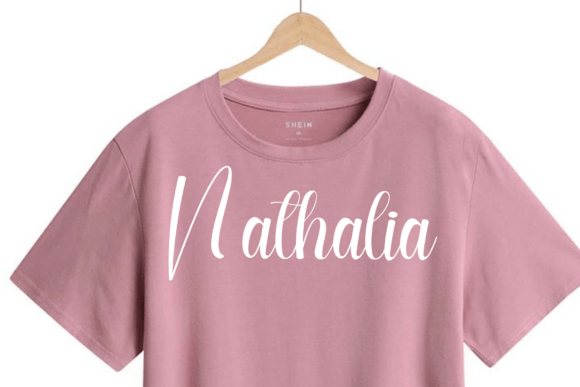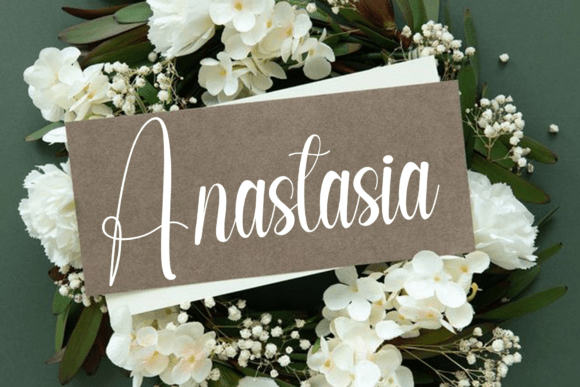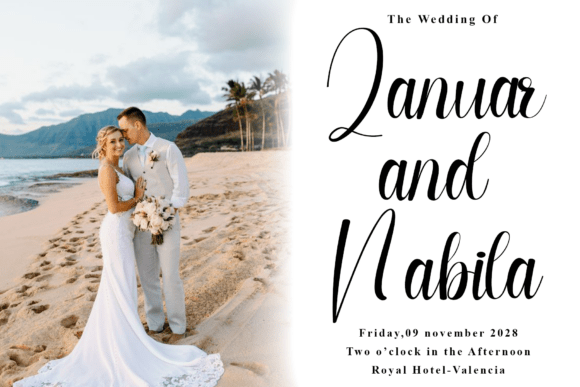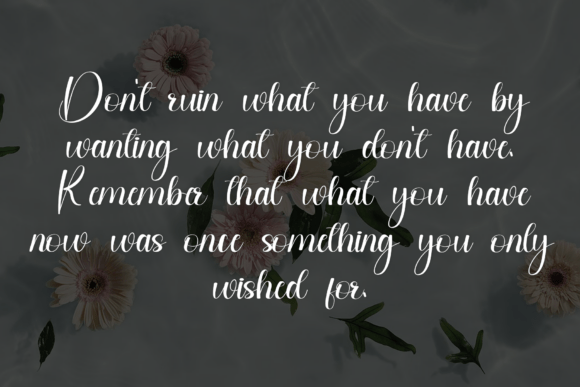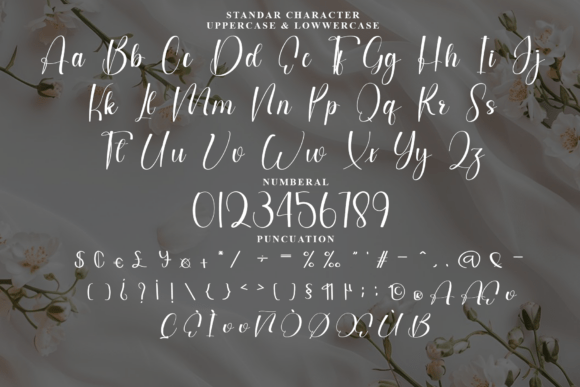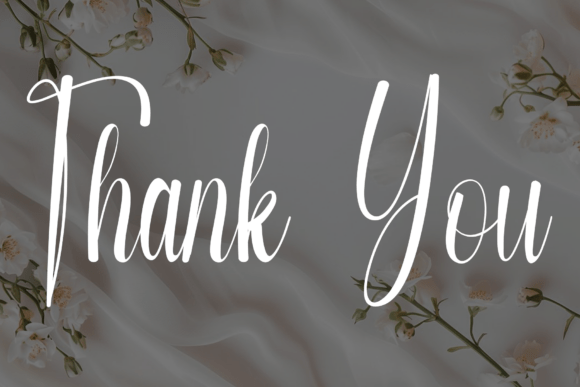
Introducing Floating Font: Elevate Your Design with a Breeze of Elegance
In the realm of modern handwritten fonts, Floating emerges as a unique and professional addition, crafted to infuse designs with a sense of clarity and crisp elegance. This font, characterized by its tall, thin strokes and subtle, airy slant, offers a refined aesthetic that feels refreshingly invigorating, much like a mountain breeze. Whether you’re a designer, a crafter, or a brand looking to elevate your visual identity, Floating Font is poised to become your go-to choice for projects that demand a touch of sophistication and freshness.
The Essence of Floating Font
Floating Font is not just another addition to the myriad of handwritten fonts available today. Its design is meticulously thought out to evoke a sense of lightness and grace, making it an ideal choice for applications where elegance and approachability are paramount. The tall, thin strokes of Floating Font lend a sense of grandeur and refinement, while its subtle slant adds a dynamic, yet understated, flair to the text. This balance of elegance and approachability makes Floating Font versatile, capable of enhancing a wide range of design projects.
Ideal Applications for Floating Font
The clean and approachable style of Floating Font makes it exceptionally suited for several key areas:
- Travel Photography: For travel photographers and bloggers, Floating Font offers a way to add a sophisticated touch to titles and captions, perfectly complementing the breathtaking visuals of travel experiences.
- Branding for Outdoor Gear: Brands that specialize in outdoor gear and equipment can leverage Floating Font to communicate a sense of adventure and reliability. Its fresh and airy feel aligns well with the outdoorsy and adventurous vibes of such brands.
- Sophisticated Web Design: For web designers looking to create a site that feels both modern and elegant, Floating Font can serve as a versatile tool. It can be used for headings, titles, and even body text, providing a cohesive and refined look to the website.
Why Choose Floating Font?
Choosing Floating Font for your design projects comes with several advantages:
- Unique Aesthetic: Floating Font offers a unique aesthetic that stands out in the crowded space of digital and print design. Its distinctive look can help projects gain attention and leave a lasting impression.
- Versatility: The font’s versatility means it can be used across various platforms and design applications, from digital interfaces to print materials, without losing its elegance and impact.
- Ease of Reading: Despite its elegant and thin strokes, Floating Font maintains a high level of legibility, making it suitable for both headings and longer texts.
Tips for Using Floating Font Effectively
To maximize the impact of Floating Font in your designs, consider the following tips:
- Pair with Contrasting Fonts: For optimal readability and visual interest, pair Floating Font with a more robust, contrasting font for body text or other elements.
- Adjust Line Spacing: Given its airy feel, ensure adequate line spacing to maintain the font’s light and elegant appearance.
- Consider Color Choices: Floating Font’s delicate appearance means that color choices should complement its lightness. Soft, pastel colors or rich, dark tones can create a stunning contrast.
Floating Font stands out as a remarkable addition to the world of modern handwritten fonts, offering a blend of elegance, clarity, and freshness that’s hard to find. Its unique characteristics make it an excellent choice for designers and crafters looking to imbue their projects with a sense of sophistication and airiness. Whether you’re working on travel photography, outdoor gear branding, or sophisticated web design, Floating Font is a versatile tool that can elevate your work to new heights of aesthetic appeal and professional quality.